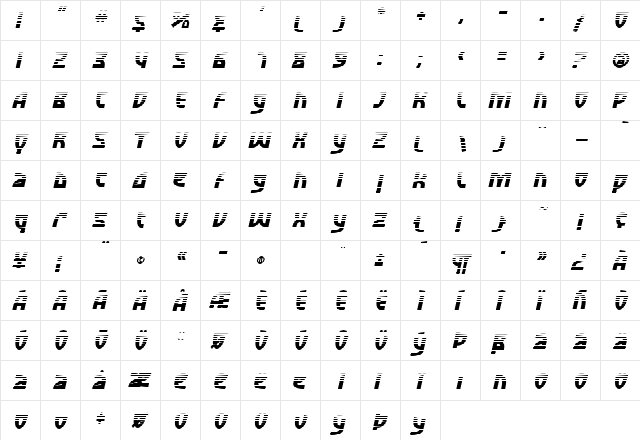
SF Retroesque FX Oblique
Design Context for SF Retroesque FX Typeface
SF Retroesque FX wears its vintage influences proudly, with letterforms that recall mid-century signage, classic packaging, and nostalgia-driven design. The slanted form adds forward momentum and visual energy.
Ideal for diner signage, record shop branding, 70s/80s-themed projects, and heritage product labels.
Font Pairing: Combine SF Retroesque FX with a simple slab or neutral sans — period-accurate companions reinforce the vintage feel without competing for attention.
Pro Tip: Lean into SF Retroesque FX's period character by pairing it with aged paper textures, muted colour palettes, and vintage illustration styles.